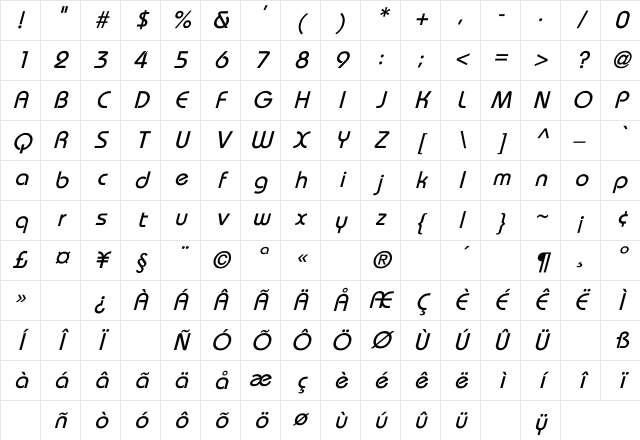
Ambrose Italic Italic
Style: Italic
Design Context for Ambrose Italic
Ambrose Italic is a composed and adaptable typeface that performs quietly and consistently across a wide range of design contexts. The slanted form adds forward momentum and visual energy.
Pro Tip: Use Ambrose Italic for emphasis, pull quotes, and subheadings where its slanted energy can add rhythm to the layout.